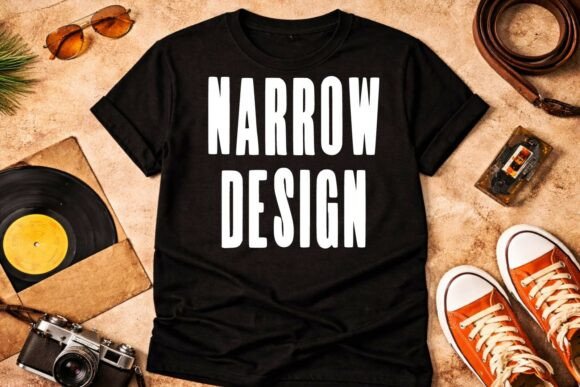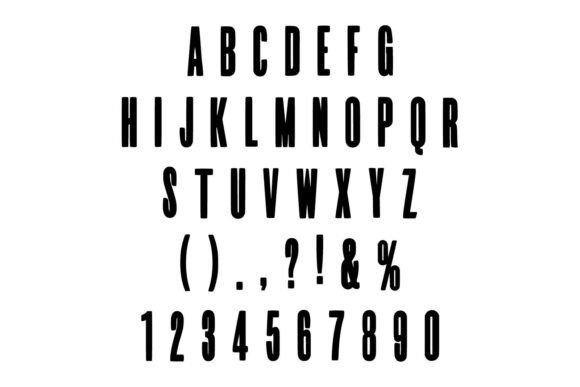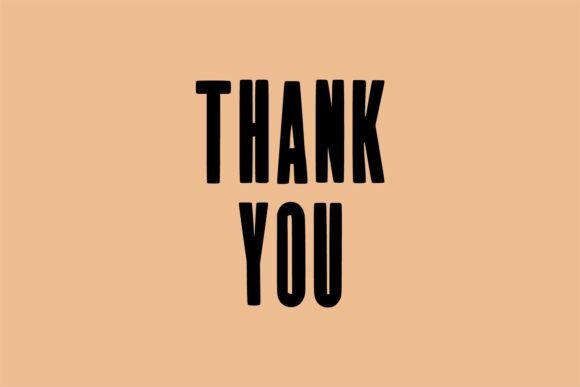
Introducing Bold Beach Narrow Display Font: The Ultimate Choice for Modern Vintage Designs
In the world of typography, a good font can make all the difference in creating visually stunning designs. If you’re a designer or crafter looking for a strong and stylish condensed typeface, look no further than Bold Beach Narrow Display Font. This modern vintage-inspired font is designed to make a statement, with tall, narrow, and bold letterforms that are perfect for eye-catching headlines, posters, logos, branding, t-shirt designs, packaging, and retro-inspired projects.
What Makes Bold Beach Narrow Display Font Stand Out?
Bold Beach Narrow Display Font boasts a clean yet impactful design that makes it ideal for creating bold typography that stands out in both digital and print designs. Its unique blend of modern and vintage elements gives it a distinctive look that’s sure to grab attention. The font’s tall and narrow letterforms make it perfect for creating headlines, titles, and captions that need to pack a punch.
Key Features of Bold Beach Narrow Display Font
• Strong and Stylish: Bold Beach Narrow Display Font is designed to make a statement, with bold and stylish letterforms that are sure to grab attention.
• Condensed Typeface: The font’s condensed design makes it perfect for creating compact and impactful typography.
• Modern Vintage Feel: The font’s modern vintage-inspired design gives it a unique and distinctive look that’s perfect for retro-inspired projects.
• Clean and Impactful: The font’s clean design makes it easy to read, while its impactful letterforms make it perfect for creating bold typography.
• Versatile: Bold Beach Narrow Display Font is perfect for a wide range of design projects, including headlines, posters, logos, branding, t-shirt designs, packaging, and more.
Bold Beach Narrow Display Font is a versatile font that’s perfect for designers and crafters who want to create visually stunning designs. Whether you’re working on a digital project or a print design, this font is sure to make a statement. Its unique blend of modern and vintage elements makes it perfect for creating retro-inspired designs that are sure to grab attention.
Use Cases for Bold Beach Narrow Display Font
• Headlines and Titles: Use Bold Beach Narrow Display Font to create bold and eye-catching headlines and titles that grab attention.
• Posters and Flyers: The font’s bold and stylish letterforms make it perfect for creating posters and flyers that need to stand out.
• Logos and Branding: Use Bold Beach Narrow Display Font to create unique and memorable logos and branding that make a statement.
• T-Shirt Designs: The font’s bold and stylish letterforms make it perfect for creating eye-catching t-shirt designs.
• Packaging: Use Bold Beach Narrow Display Font to create bold and eye-catching packaging that stands out on store shelves.
Why Choose Bold Beach Narrow Display Font?
There are many fonts available that claim to be versatile and stylish, but Bold Beach Narrow Display Font stands out from the crowd. Its unique blend of modern and vintage elements makes it perfect for creating retro-inspired designs that are sure to grab attention. The font’s clean and impactful design makes it easy to read, while its bold letterforms make it perfect for creating bold typography.
Font Name Bold Beach Font
Author mardanimirza12
In conclusion, Bold Beach Narrow Display Font is a strong and stylish condensed typeface that’s perfect for designers and crafters who want to create visually stunning designs. Its unique blend of modern and vintage elements makes it perfect for creating retro-inspired designs that are sure to grab attention. With its clean and impactful design, bold and stylish letterforms, and versatile use cases, Bold Beach Narrow Display Font is the ultimate choice for modern vintage designs.